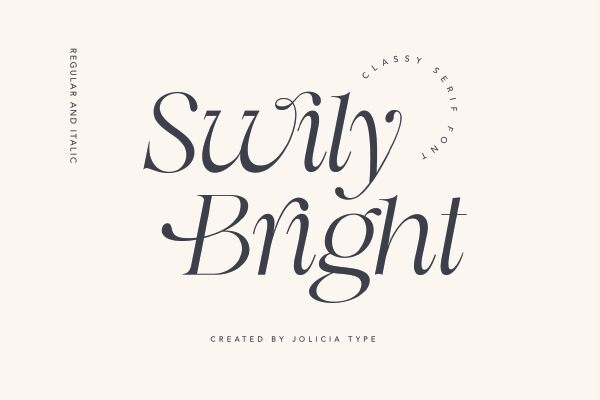
Swily Bright Italic font by Jolicia Type Foundry gives a sophisticated feel to any project. The stunning modern classic typeface holds all the elegance and stylish appeal it takes to take designs from basic to master level. With its refined curves, this serif font will naturally add a captivating look and gorgeous aura to your projects.
Some of those include headings, apparel branding & packaging designs, newspaper & magazine covers, logo design, book covers or labels. Blog icons and social media posts are two quick digital elements that can also benefit from this excellent free serif font!
Swily Bright